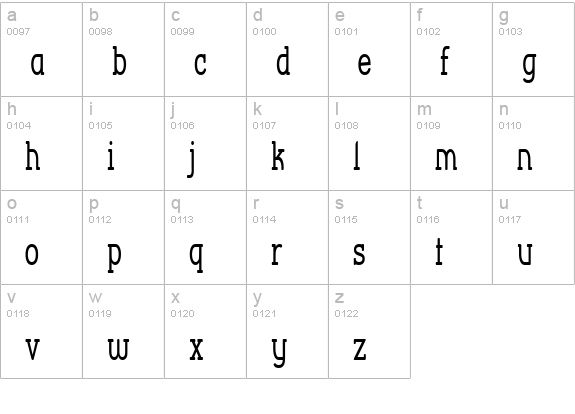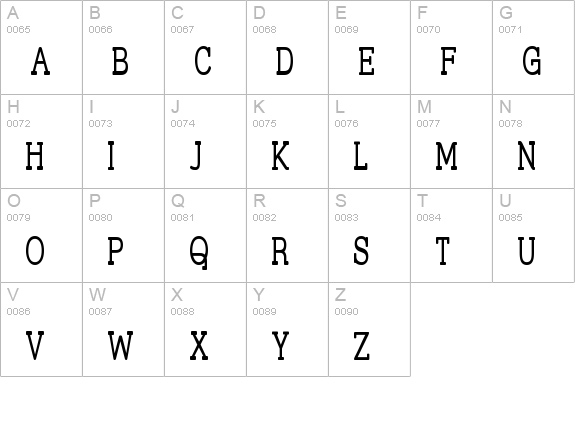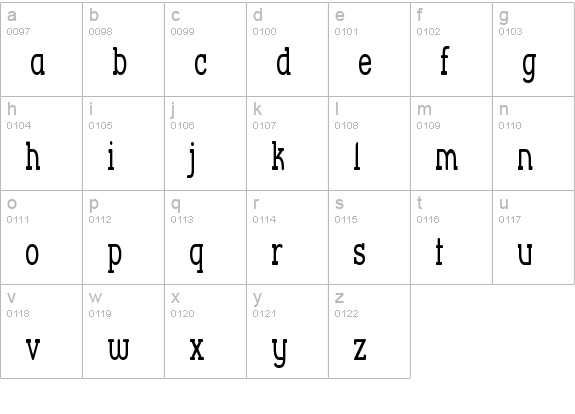
Street Corner Slab Narrow Font Details
Street Corner Slab Narrow is a distinctive, condensed-width variant in the Street typeface family \xE2\x80\x94 well suited to design and typography projects.
Street Corner Slab Narrow is a modern and stylish font that exudes a sense of urban sophistication. With its bold lines and sharp angles, this typeface is perfect for making a statement in any design project. Whether you're creating a poster, flyer, or logo, Street Corner Slab Narrow will add a touch of edgy flair. What makes Street Corner Slab Narrow even more appealing is that it is available for free download at FontsMarket.com. This means you can easily access this eye-catching font and incorporate it into your work without any cost. So go ahead and elevate your designs with Street Corner Slab Narrow - the perfect blend of boldness and style, now at your fingertips for free.